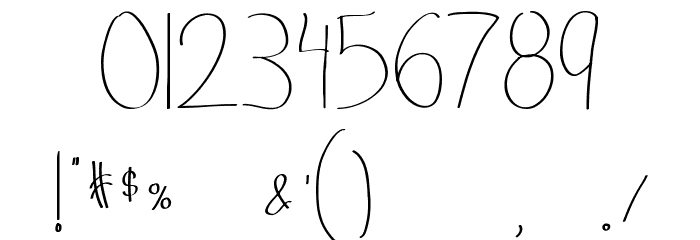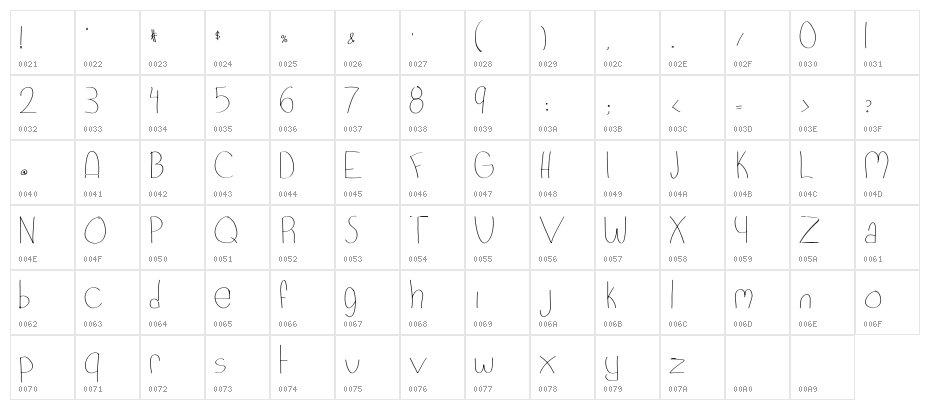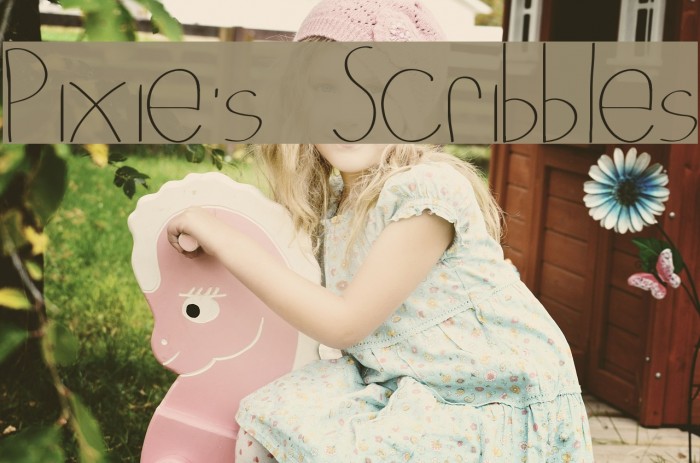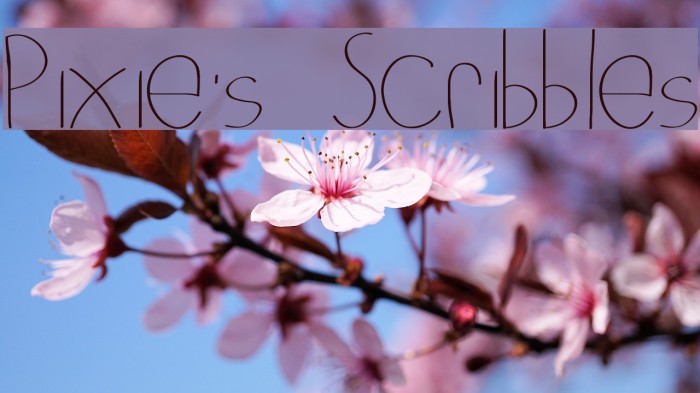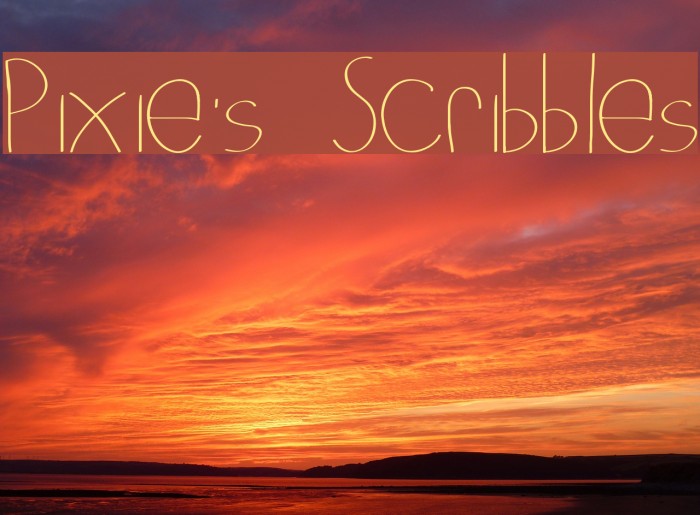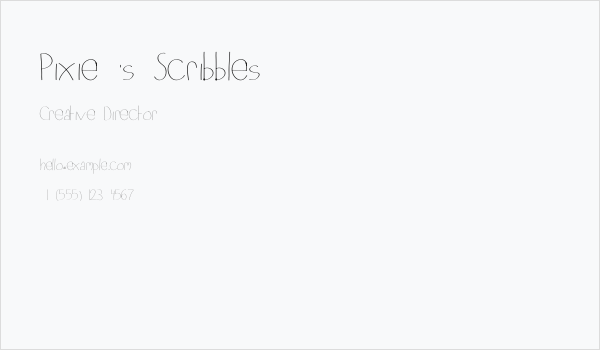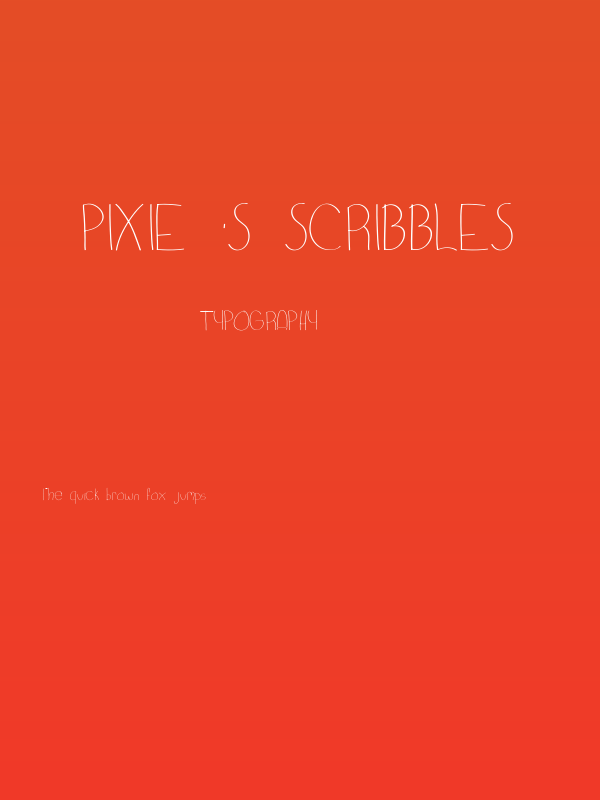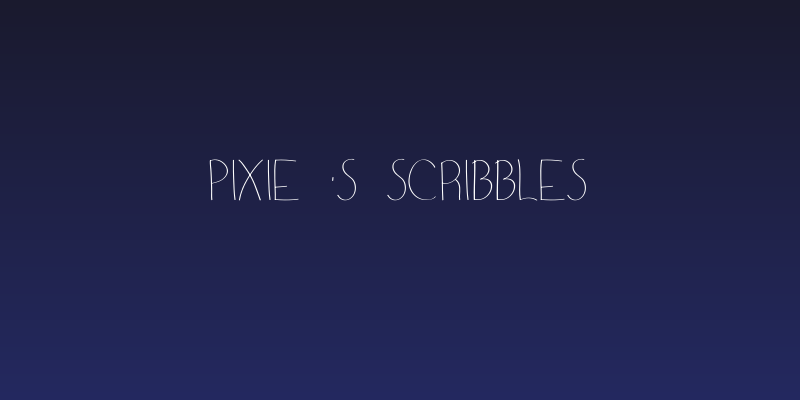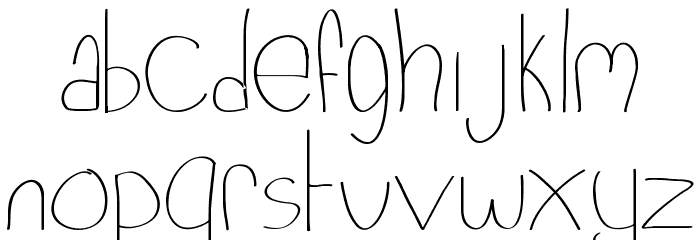
Pixie's Scribbles Font
Pixie's Scribbles Description
This font features a whimsical, handwritten style with elongated, thin strokes that give it a playful and casual appearance. The characters are slightly irregular, adding to the charm and informal feel. The uppercase letters are tall and narrow, while the lowercase letters maintain a consistent height, creating a harmonious balance. Numbers and special characters follow the same playful design, making the font versatile for creative projects. The overall look is light and airy, perfect for conveying a sense of fun and creativity.
| Overall Style | Playful, Casual |
| Proposed Projects | Ideal for children's books, greeting cards, playful branding, and creative invitations. |